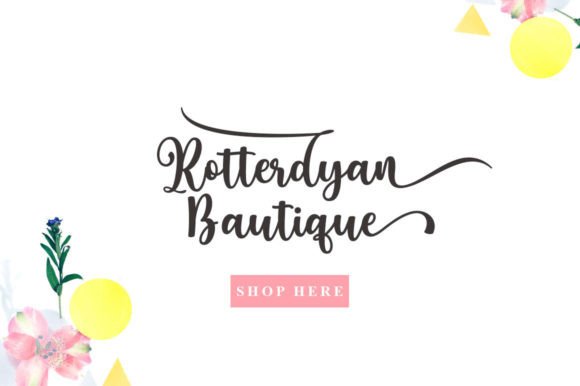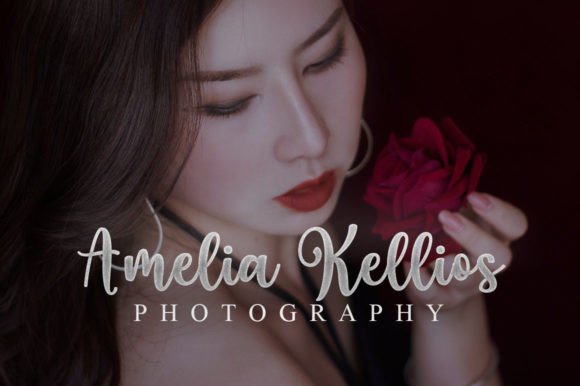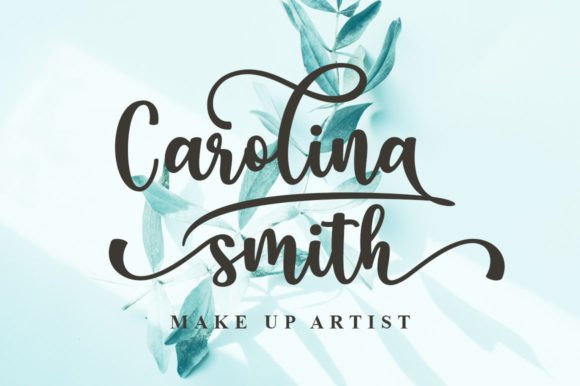
Introduction to Keira Knightley Font
Have you ever been scrolling through Instagram, and you come across a beautifully handwritten quote or a stunning invitation that catches your eye? That’s the magic of the Keira Knightley Font, a script font that adds a touch of elegance to any creative project. Whether you’re a designer, a DIY enthusiast, or simply someone who loves beautiful typography, this font is a must-have in your design resource arsenal.
As a designer, you know how challenging it can be to find the perfect font for your project. But with the Keira Knightley Font, you can rest assured that you’re getting a high-quality, free download that’s perfect for any creative endeavor. From social media graphics to wedding invitations, this font is sure to elevate your designs and make them stand out from the crowd.
So, what makes the Keira Knightley Font so special? For starters, its transparent background makes it easy to use on any background, and its elegant script design is perfect for adding a touch of sophistication to any project. Whether you’re working on a personal or professional project, this font is a valuable addition to any designer’s toolkit.
Key Features of Keira Knightley Font
- High-quality, elegant script font designed for creative projects and personal use.
- Transparent background for easy layering and customization in graphic design projects.
- Designed to be highly legible at various resolutions (300 DPI, 600 DPI), ensuring clear display in both print and digital formats.
- Perfect for wedding invitations, quotes, and other creative projects requiring a touch of elegance and sophistication.
Honest Review: Keira Knightley Font
I recently stumbled upon the Keira Knightley Font and I must say it’s a great addition to any designer’s arsenal. The font is a beautiful, elegant script that adds a touch of sophistication to any creative project. With a transparent background, this font is perfect for designers who want to add a bit of flair to their designs without overpowering the rest of the content.
- ✨ High-quality design: The Keira Knightley Font is incredibly well-designed, with smooth lines and a natural feel that makes it perfect for use in a variety of contexts.
- ✨ Versatile: The font can be used in a variety of creative projects, from wedding invitations to restaurant menus, and even logos.
However, there are a few limitations to keep in mind: ⚠️ The font is only available in a single weight, which may not be ideal for designers who want more flexibility in their typography. Additionally, the font may not be compatible with all operating systems or software.
Overall, I’m impressed with the Keira Knightley Font. It’s a beautiful, high-quality design resource that’s perfect for designers who want to add a touch of elegance to their projects. While it may have a few limitations, I highly recommend giving it a try – especially since it’s available for free download!
Using in Creative Projects
The Keira Knightley Font is perfect for use in a variety of creative projects, including logos, posters, and social media graphics. It features a transparent background, making it easy to layer and combine with other design elements.
Tips for Getting the Most Out of the Keira Knightley Font
For optimal results, use the Keira Knightley Font in combination with other high-quality design elements. Experiment with different font sizes, colors, and layering techniques to create unique and eye-catching designs.
The Keira Knightley Font is perfect for a range of applications, including:
Logos and branding materials
Social media graphics and posts
Posters and flyers